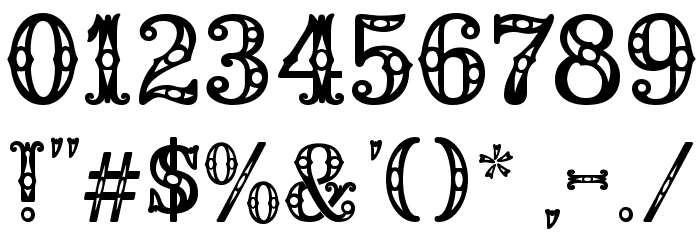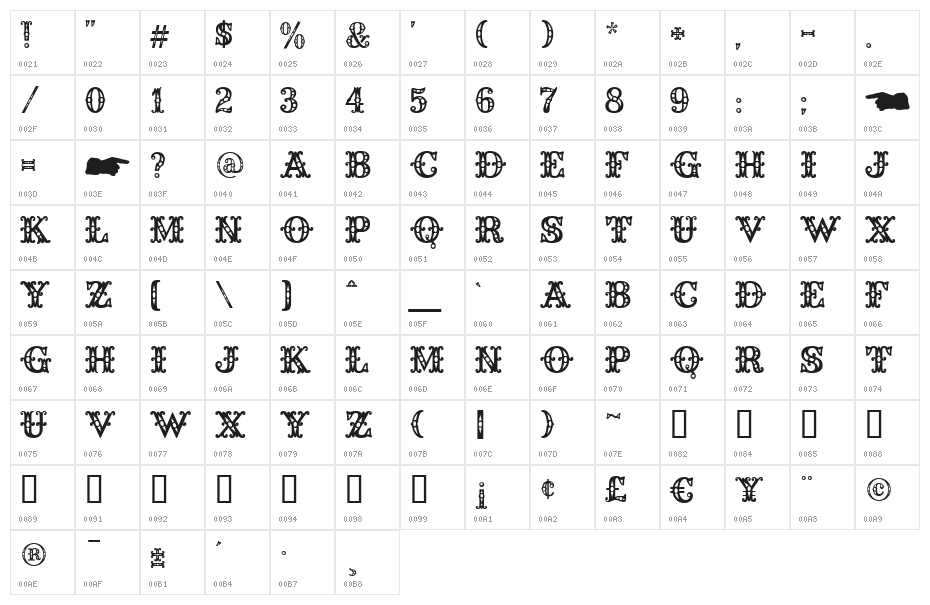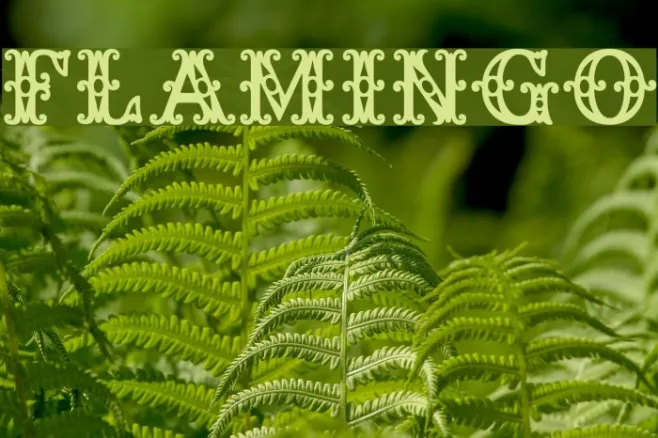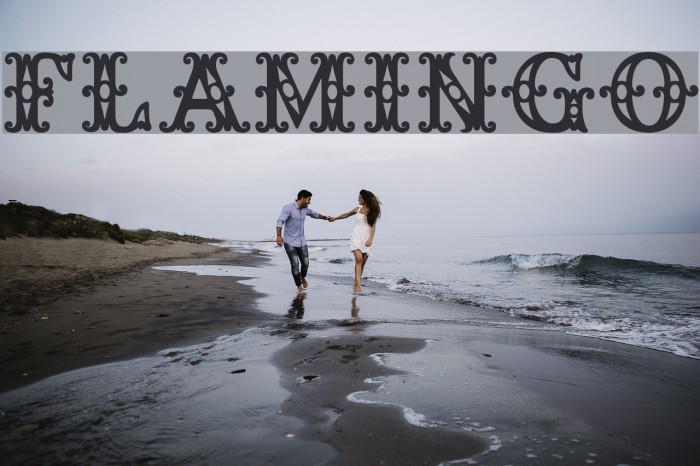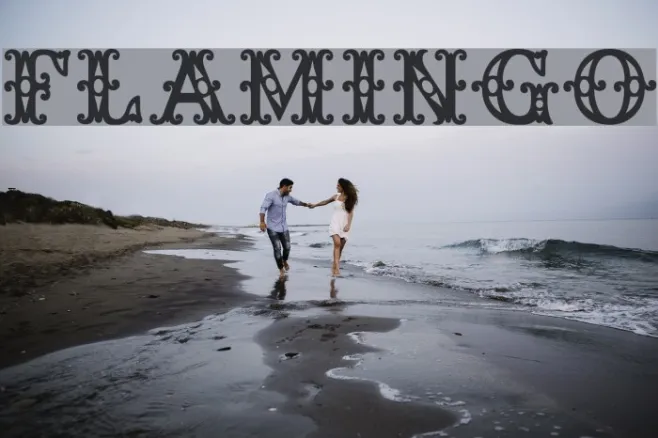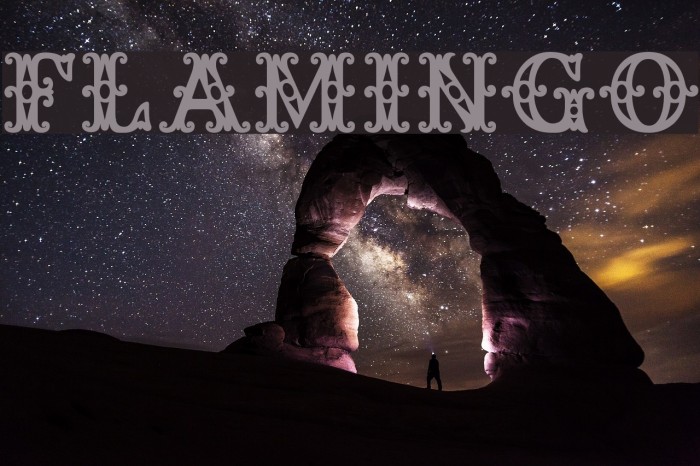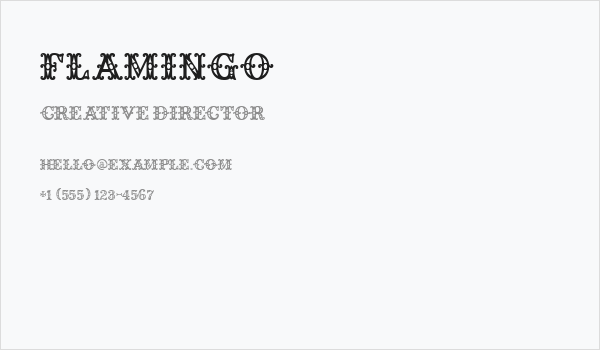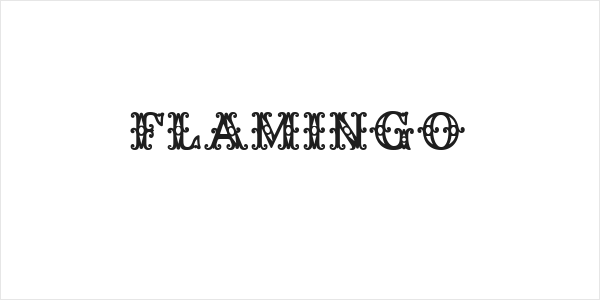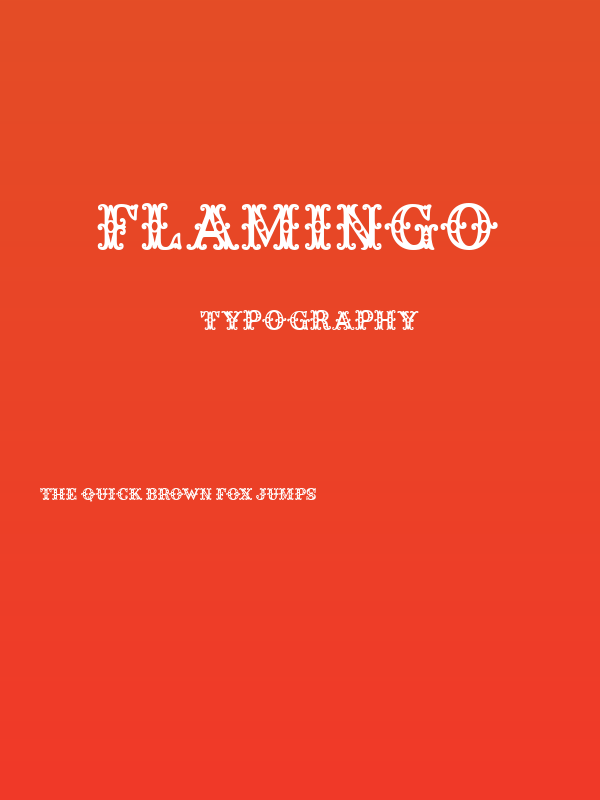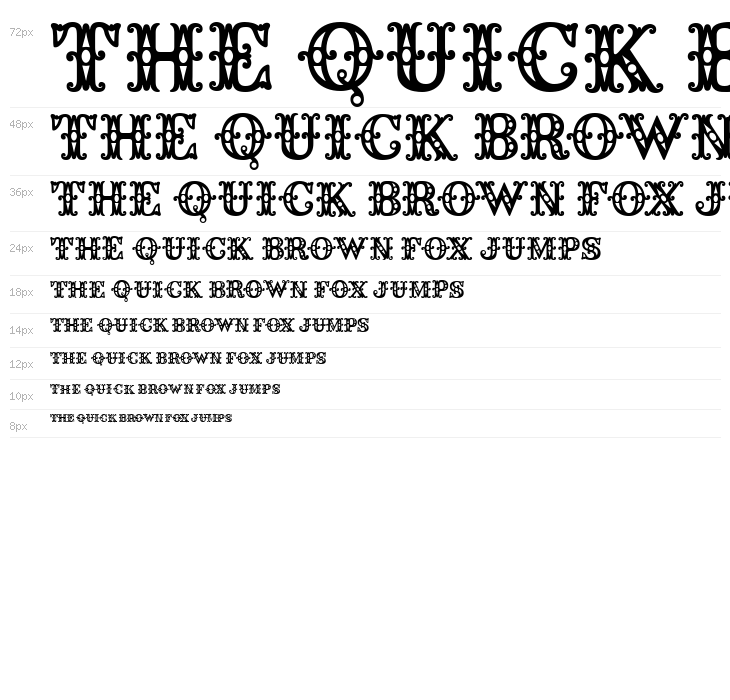
Flamingo Font
Flamingo Description
This font features an ornate and decorative style, characterized by intricate swirls and embellishments within each letterform. The uppercase letters are bold and eye-catching, with a playful yet sophisticated flair. The lowercase letters maintain the same decorative elements, ensuring consistency throughout the typeface. The numerals are equally ornate, making them stand out with their unique design. Special characters are designed with the same attention to detail, adding a whimsical touch to the overall aesthetic. This font is perfect for projects that require a touch of elegance and creativity.
| Proposed Projects | Ideal for wedding invitations, vintage posters, branding for luxury products, and artistic book covers. |